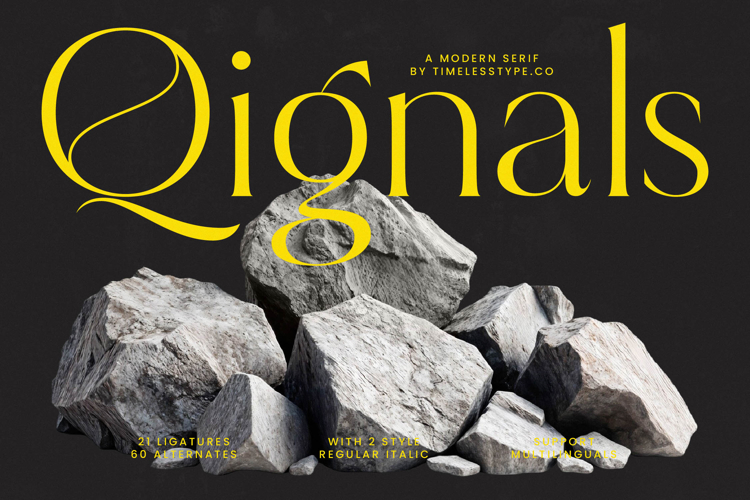
Qignals - Modern Serif Font
Unlock a realm of refined elegance with Qignals - Modern Serif Font, a typeface meticulously crafted to infuse your projects with unparalleled sophistication. This exquisite modern serif blends timeless appeal with a distinctly contemporary edge, featuring high-contrast letterforms and graceful curves that command attention. Ideal for conveying luxury and professionalism, Qignals - Modern Serif Font instantly elevates any design, perfect for brands seeking a distinguished visual identity.
Expand your creative horizons with the remarkable versatility of Qignals - Modern Serif Font. Beyond its elegant regular style, this font offers a beautiful italic variant, providing dynamic options for emphasis. Enhance your typography further with its rich character set, boasting 21 ligatures and 60 alternates that empower designers to craft truly unique headlines, logos, and intricate text, ensuring every detail speaks volumes in your creative endeavors.